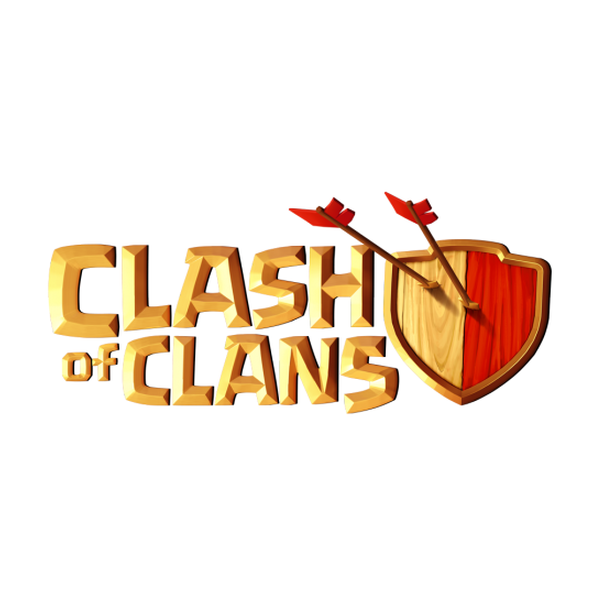
Clash of Clans Font
Fonts in UseClash of Clans is a popular mobile strategy game where players build and upgrade their own village, train troops, and battle against other players to earn resources and climb the ranks in a competitive multiplayer environment.
The logo of the game likely utilizes the You Blockhead font, created by John Roshell. This comic block typeface offers four font options, including regular and outline styles, with both uppercase versions available.